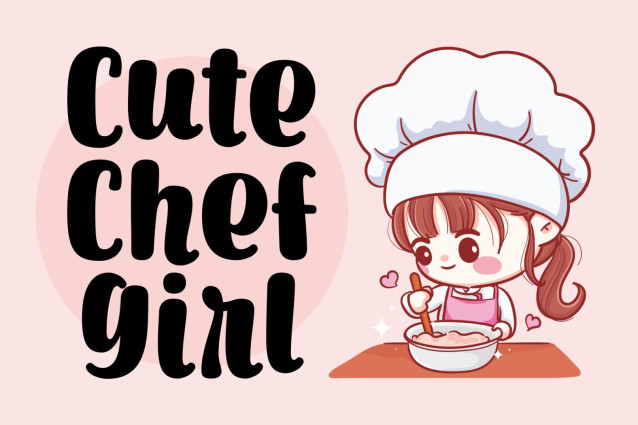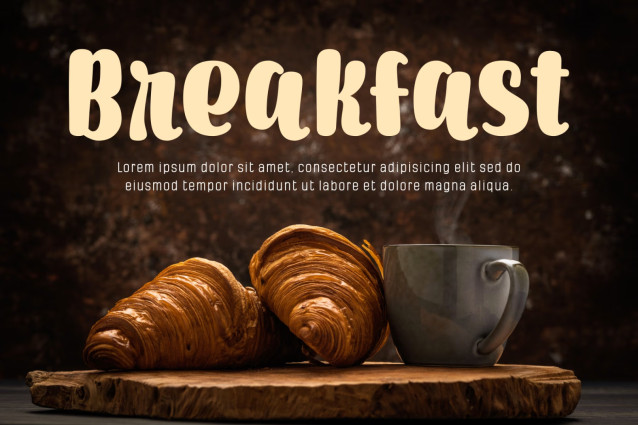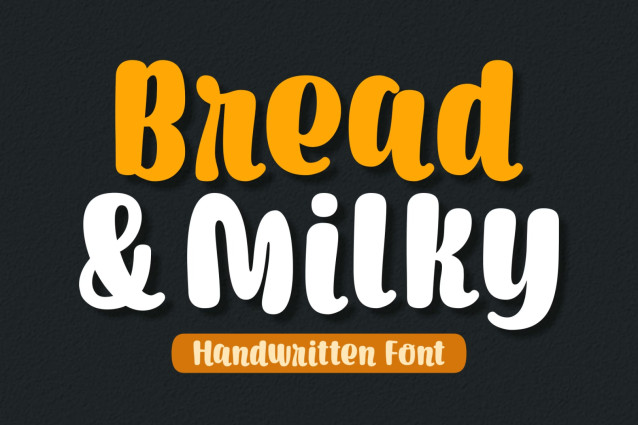
Bread and Milky Font
Bread and Milky is a sweet and adorable script display font. Its cheerful and friendly vibe is perfect for food packaging, coffee shop or restaurant menus, stickers, baby onesies or anything that requires a joyful vibe.